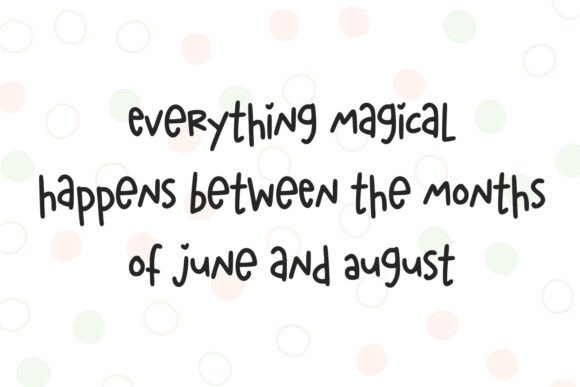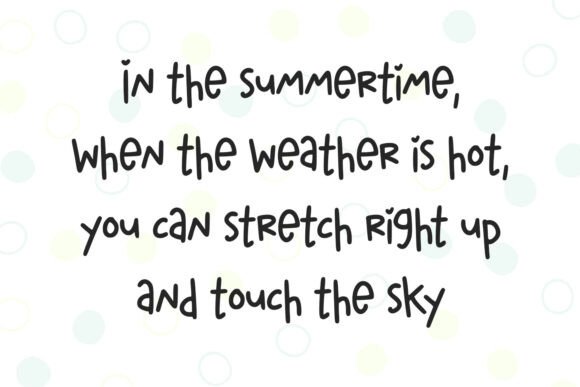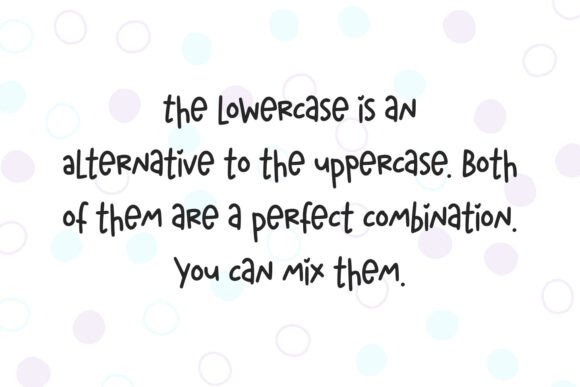
The Sweet Spot: Discovering the Charm of Angelhand Font
I’ll never forget the moment I stumbled upon the perfect font for a whimsical wedding invitation project. I had been scrolling through font after font, but nothing seemed quite right – until I met Angelhand. Its sweet, friendly, and handwritten style instantly captured the essence of the event, and I knew I had found my match. If you’re a designer, crafter, or creative hobbyist looking for a font that can bring a touch of warmth and personality to your projects, you’re in the right place.
A Personal Review: What I Love About Angelhand
So, what makes Angelhand so special? Here are a few things that I absolutely love about this font:
- ✨ Natural and Unique Style: Angelhand boasts a one-of-a-kind, handwritten look that adds a personal touch to any design.
- ✅ Versatility: From invitations and greeting cards to branding and packaging, Angelhand can adapt to a wide range of design needs.
- 💫 Elegant yet Playful: This font strikes the perfect balance between sophistication and playfulness, making it ideal for projects that require a bit of whimsy.
While Angelhand is an amazing font, there are a few minor things to keep in mind:
- 🤔 Legibility at Small Sizes: Like many handwritten fonts, Angelhand may lose some legibility when used at very small sizes. It’s best used at larger sizes where its unique charm can shine.
- ⚠️ Overuse: Because of its beauty and versatility, it’s easy to overuse Angelhand. Make sure to balance it with other design elements to keep your project looking fresh.
The Story Behind Angelhand: A Designer’s Inspiration
While the exact origins of Angelhand might be shrouded in mystery, it’s easy to imagine a designer with a passion for handwriting and elegance creating such a font. Perhaps they wanted to bottle the essence of handwritten notes and letters into a digital format, making it accessible to designers and hobbyists worldwide. Whatever the inspiration, Angelhand has undoubtedly become a beloved tool in many creative toolkits.
| Is Angelhand suitable for body text? | While Angelhand is beautiful, it’s best used for headings and short paragraphs due to its decorative nature. For longer body text, a more straightforward font might be more readable. |
Angelhand is more than just a font – it’s a design companion that can bring warmth, elegance, and a dash of whimsy to your projects. Whether you’re a seasoned designer or a creative hobbyist, its versatility and charm make it a valuable addition to your toolkit. So go ahead, let your imagination run wild, and see where Angelhand takes you! 🌟